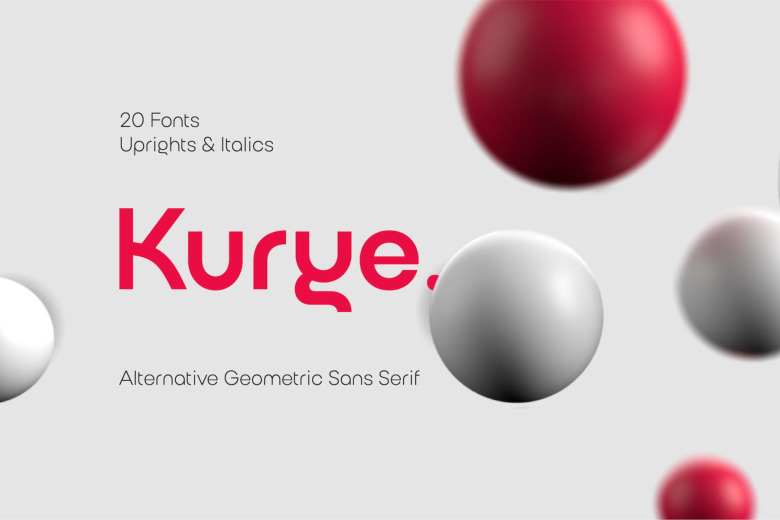
Kurye Font
Kurye Font is modern sans serif typeface which designed based on geometric shapes. You can choose its large family for your magazine, brochure, catalog designs, furniture and architectural presentations. In this way, you can add a more aesthetic and unique atmosphere to your designs.
Kurye Sans Serif Font